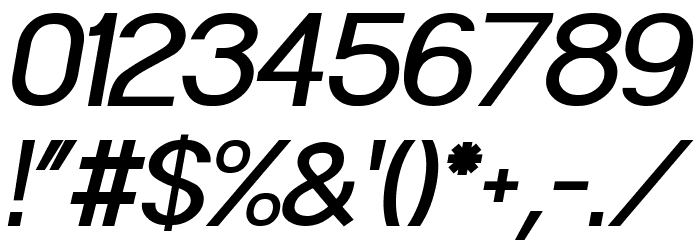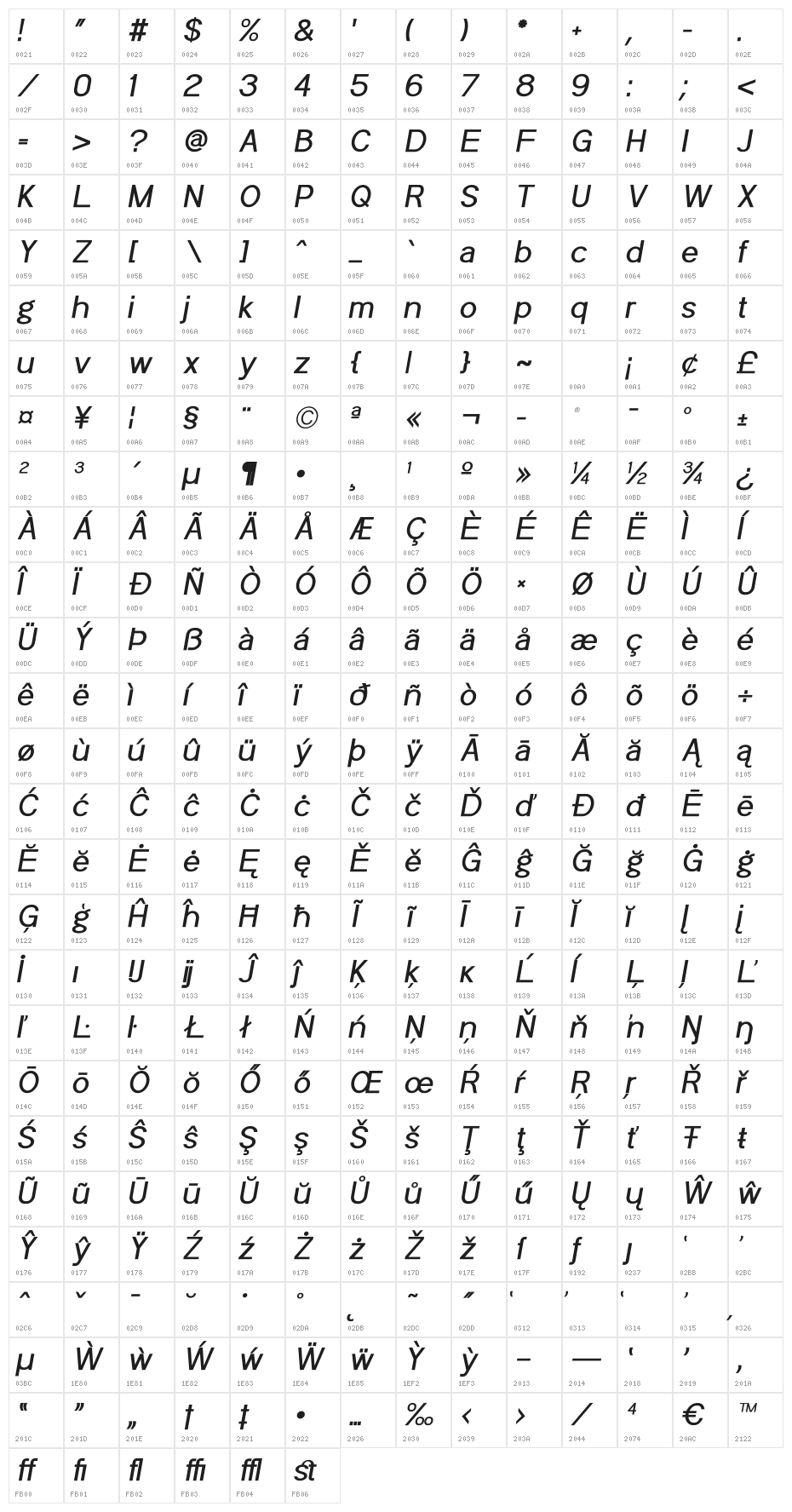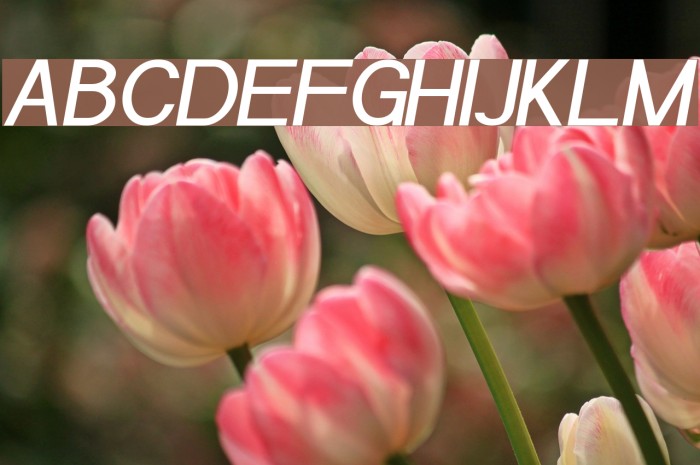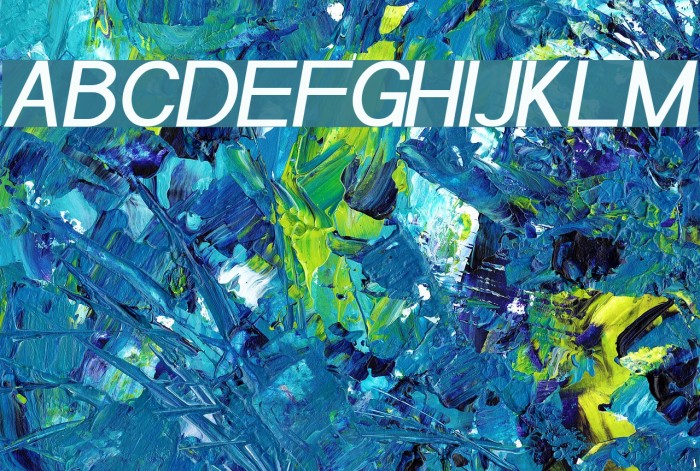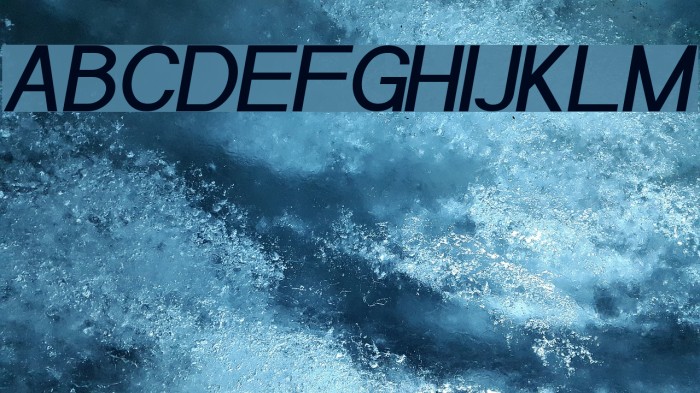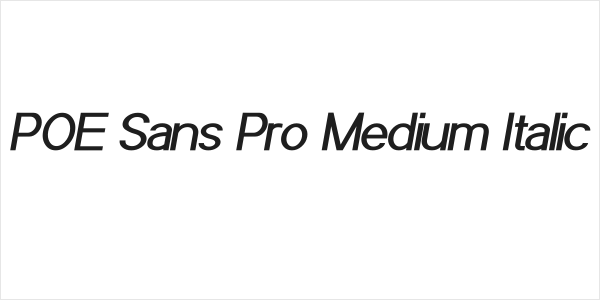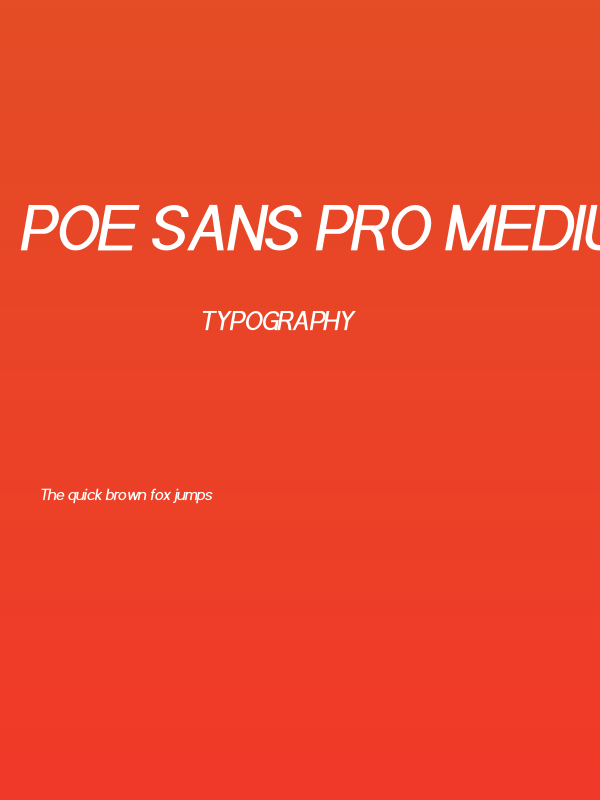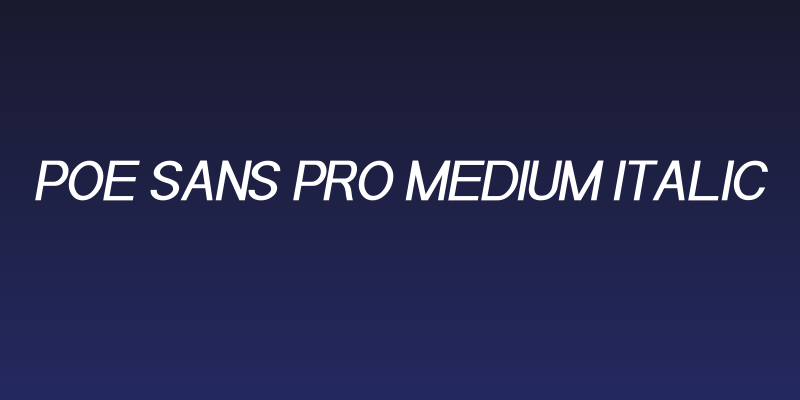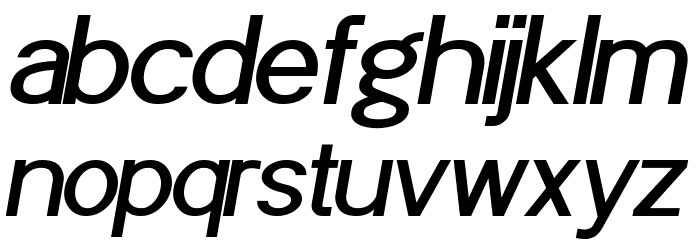
POE Sans Pro Medium Italic Font
POE Sans Pro Medium Italic Description
This typeface features a clean and modern sans-serif design with a medium weight and italic style. The letters are slightly slanted, giving a dynamic and forward-moving appearance. The strokes are consistent in thickness, providing a uniform look across all characters. The uppercase and lowercase letters are well-proportioned, with a slight emphasis on the curves, particularly noticeable in letters like 'a', 'e', and 'g'. The numbers are clear and easily distinguishable, with a contemporary feel. Special characters are designed to match the overall aesthetic, maintaining the sleek and professional look of the typeface.
| Proposed Projects | Ideal for branding, advertising, and digital media projects where a modern and professional look is desired. |